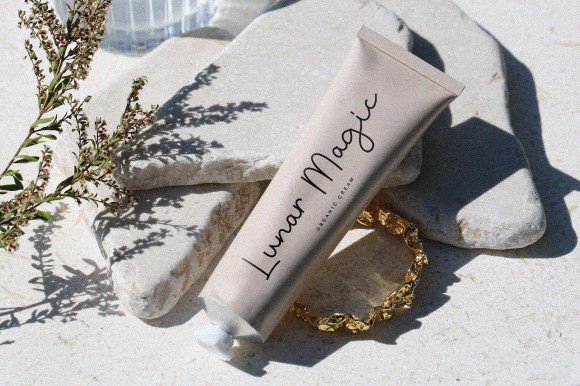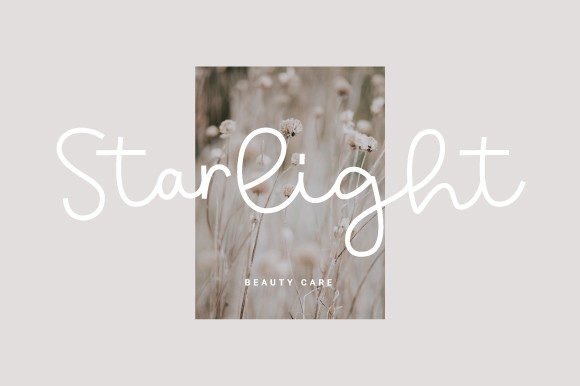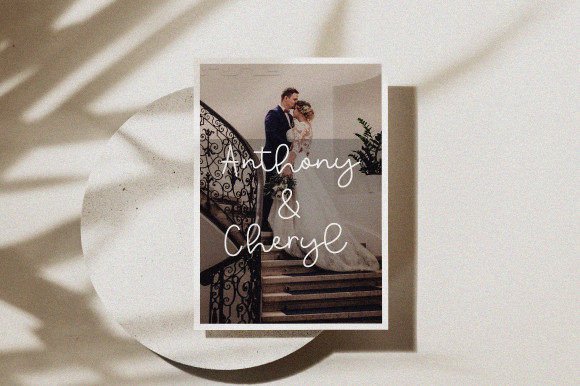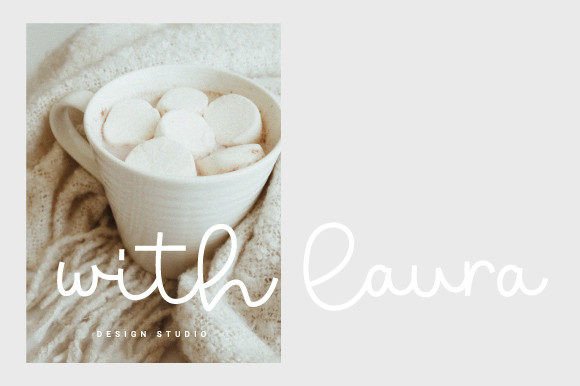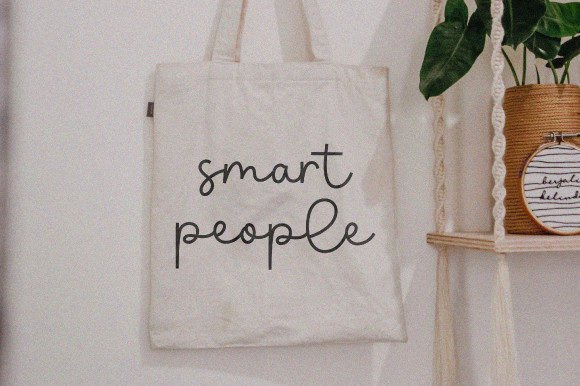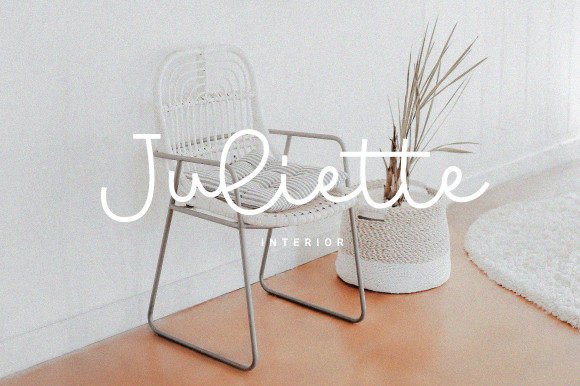
Berrylike Font: Elevate Your Designs with Elegance and Sophistication
In the world of design, typography plays a crucial role in conveying the message and aesthetic of a brand or project. Among the numerous fonts available, the Berrylike font stands out as a beautiful script font that can instantly elevate your designs to a new level of dazzling sophistication. Whether you’re a designer, craftsperson, or simply someone who appreciates the art of typography, Berrylike is an excellent choice for a wide range of applications.
What is Berrylike Font?
Berrylike is a stunning script font that exudes elegance and refinement. Its flowing lines, intricate details, and beautiful letterforms make it perfect for designs that require a touch of luxury and sophistication. The font’s unique charm lies in its ability to add a personal and human touch to any design, making it ideal for projects that require a sense of warmth and personality.
Uses of Berrylike Font
Berrylike font is incredibly versatile and can be used in a variety of design applications, including:
• Branding designs: Create a lasting impression with Berrylike’s elegant typography, perfect for logos, business cards, and brand guidelines.
• Merchandise: Add a touch of sophistication to your merchandise, such as t-shirts, mugs, and tote bags.
• Logos: Create a unique and memorable logo that stands out from the crowd with Berrylike’s beautiful script font.
• Wedding invitations: Make your wedding invitations truly special with Berrylike’s elegant and refined typography.
• Social media posts: Elevate your social media posts with Berrylike’s beautiful font, perfect for creating engaging and eye-catching content.
Why Choose Berrylike Font?
With so many fonts available, why choose Berrylike? Here are just a few reasons why Berrylike stands out:
• Unique and elegant design: Berrylike’s beautiful script font is unlike any other, offering a fresh and distinctive look that will set your designs apart.
• High-quality typography: Berrylike’s font is meticulously crafted to ensure that every letterform is perfect, making it ideal for designs that require attention to detail.
• Versatility: Berrylike can be used in a wide range of design applications, from branding and merchandise to wedding invitations and social media posts.
Tips for Using Berrylike Font
To get the most out of Berrylike font, here are a few tips to keep in mind:
• Use it sparingly: Berrylike’s elegant typography can be overwhelming if overused. Use it sparingly to create a lasting impression.
• Pair it with complementary fonts: Berrylike pairs well with clean and simple fonts, such as sans-serif fonts, to create a beautiful contrast.
• Experiment with colors: Berrylike looks stunning in a variety of colors, from metallic gold and silver to rich jewel tones.
In conclusion, Berrylike font is a beautiful script font that can elevate your designs to a new level of sophistication and elegance. With its unique and elegant design, high-quality typography, and versatility, Berrylike is an excellent choice for designers, craftspersons, and anyone who appreciates the art of typography. Whether you’re creating branding designs, merchandise, logos, wedding invitations, or social media posts, Berrylike is sure to make your designs look more dazzling.